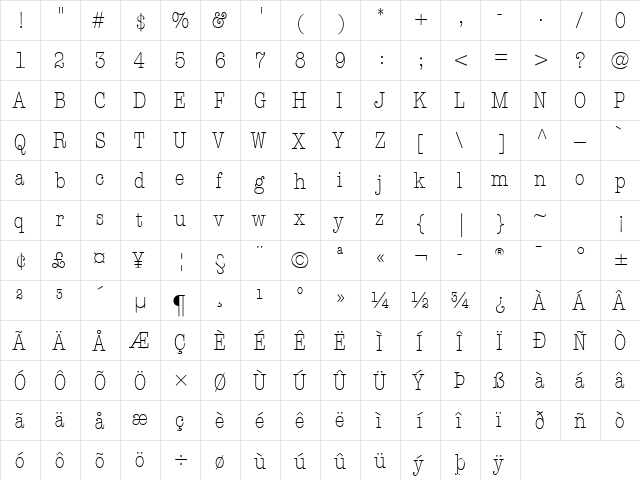
AmericanTypew LH Light Cond Font Preview
AmericanTypew LH Light Cond
AmericanTypew LH Light Cond Font Details
| Style | Light Cond |
Design Context for AmericanTypew LH Typeface
AmericanTypew LH offers clean, dependable letterforms without strong stylistic allegiance, making it a practical choice for designers who need flexibility. The delicate stroke weight brings airiness and refinement to layouts. Its narrow stance lets it pack a punch even in space-constrained designs.